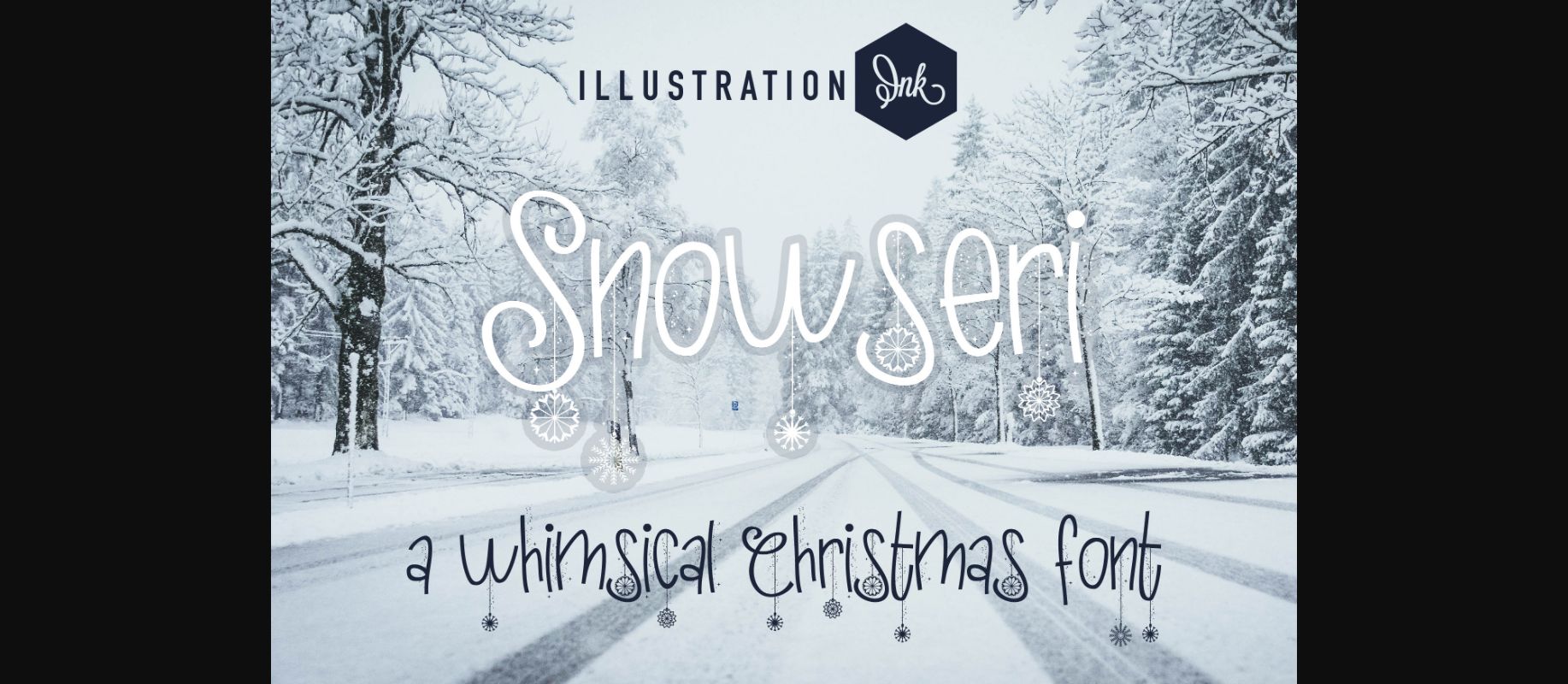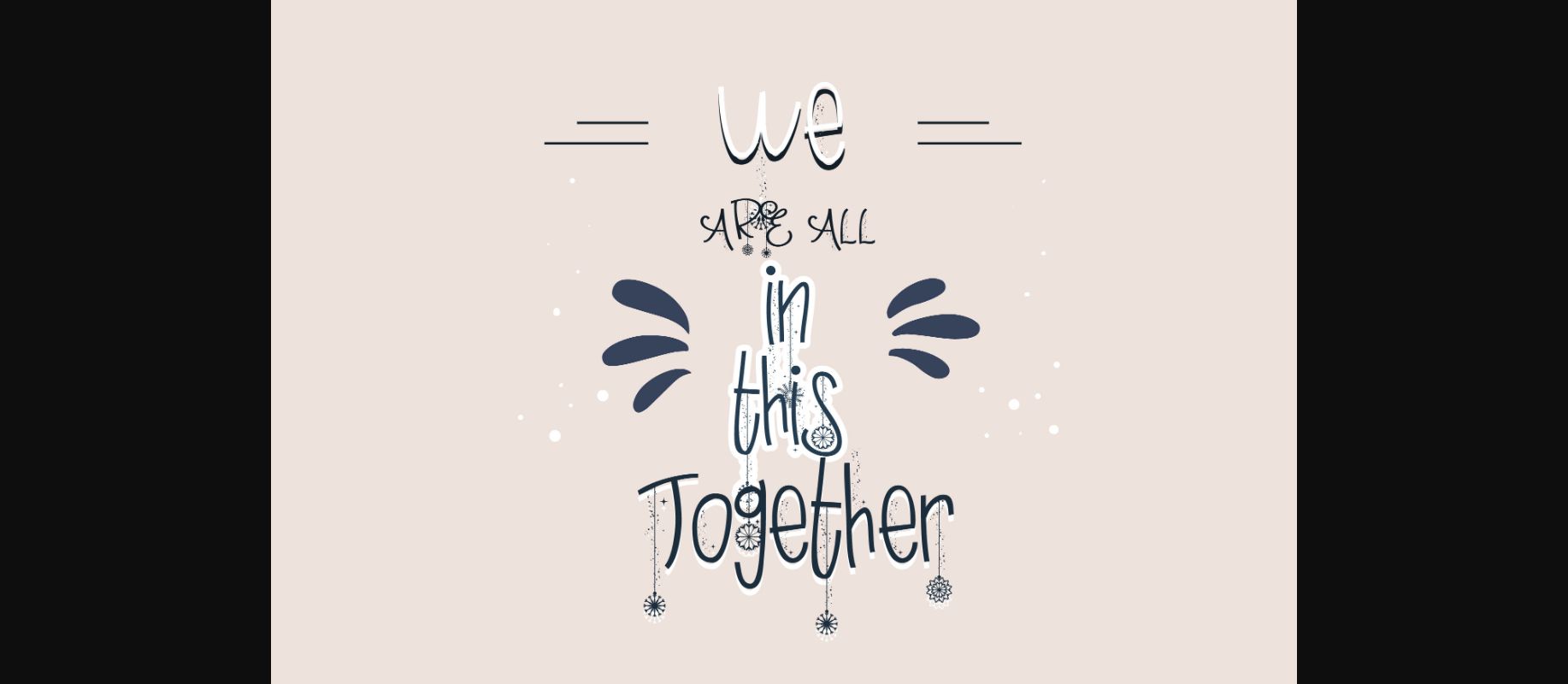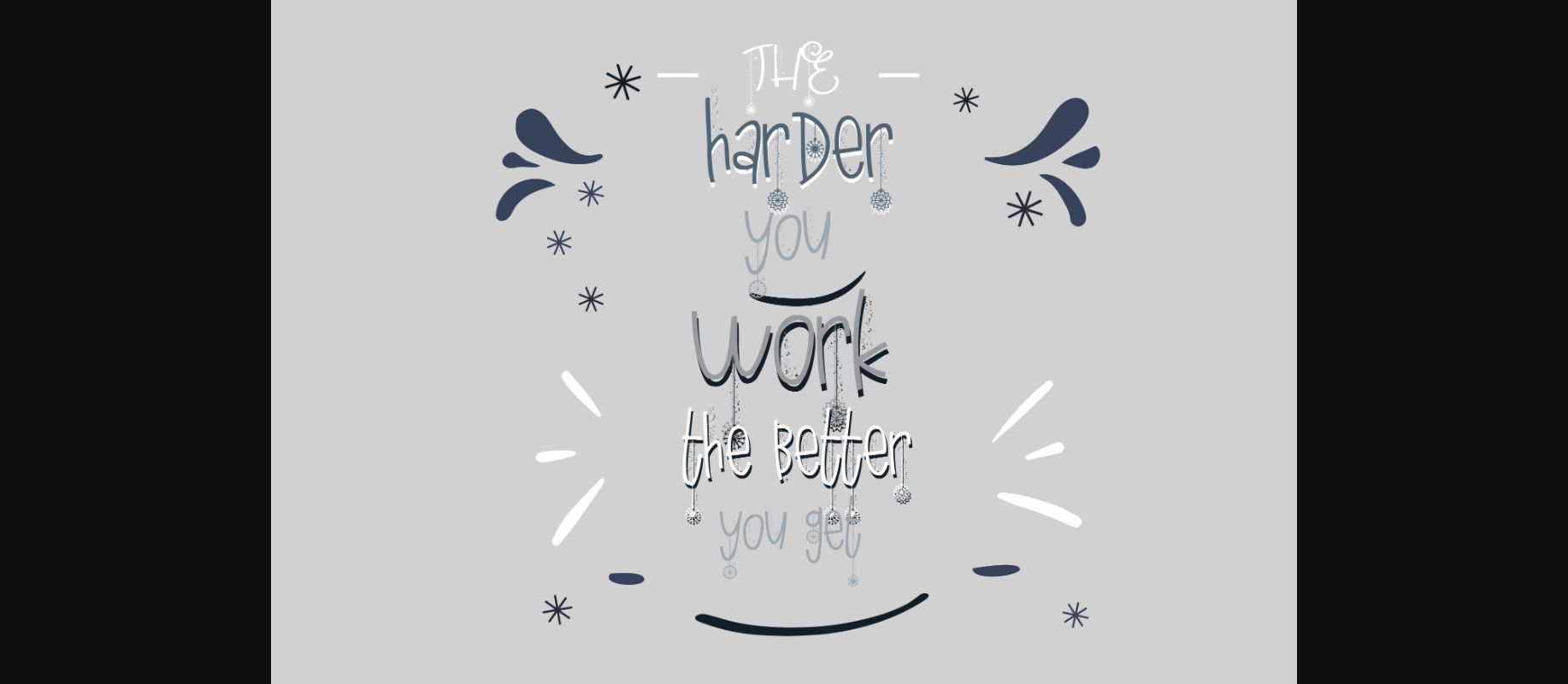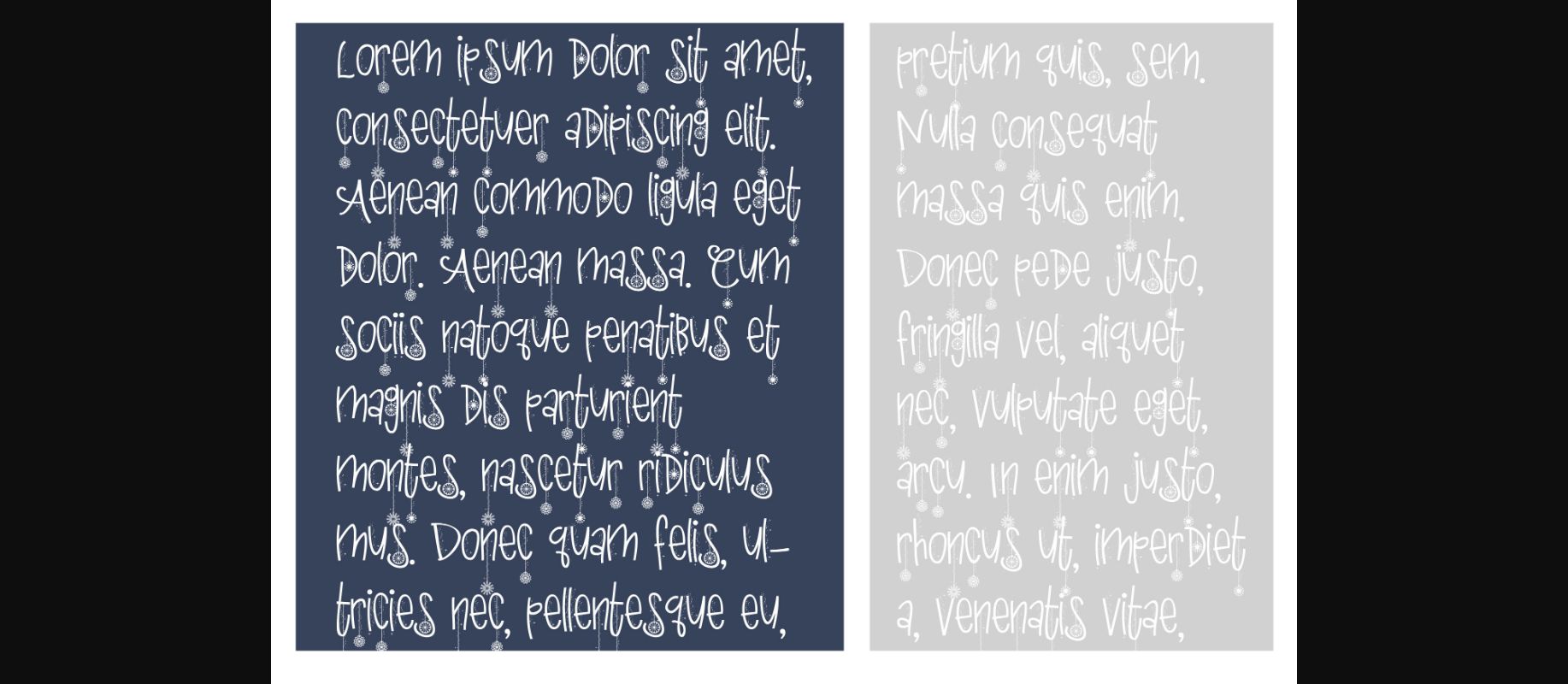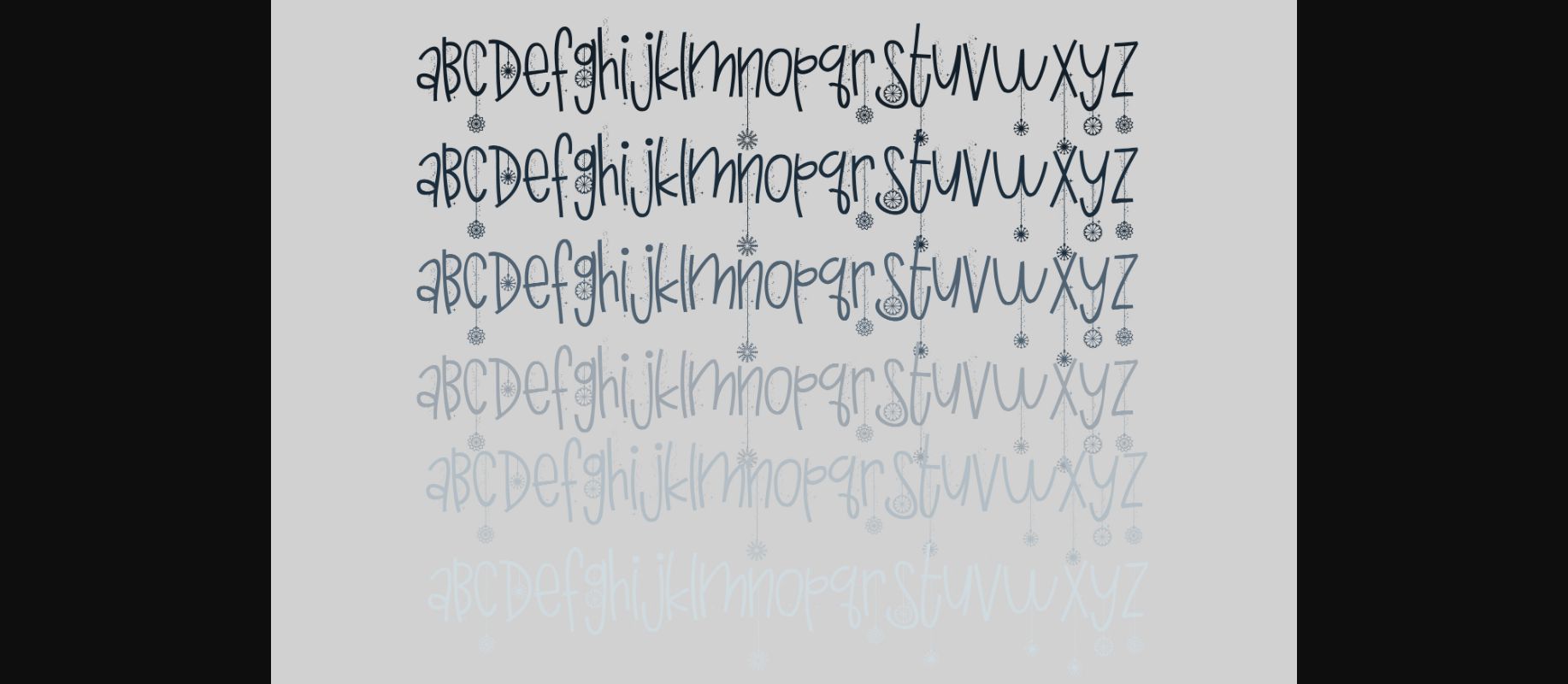
About Snowseri Font
Snowseri is a fun and festive handwritten decorative font that features cute snow dangles. No matter the topic, this font will be an incredible asset to your fonts’ library, as it has the potential to elevate any creation.